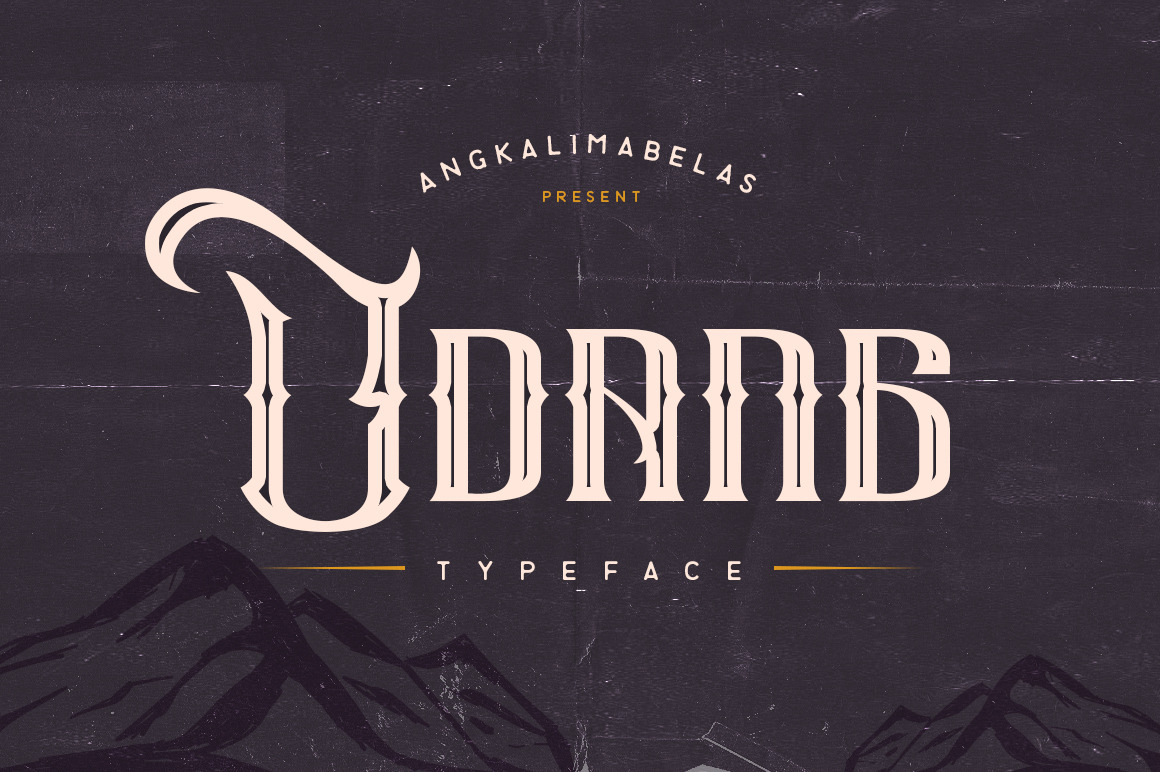
Udang Typeface
Introducing Udang Typeface classic display font.
Inspired by victorian style which is combining classic and modern typography. You can applied to all typography with mix and match pairs of letters to fit your own designs.